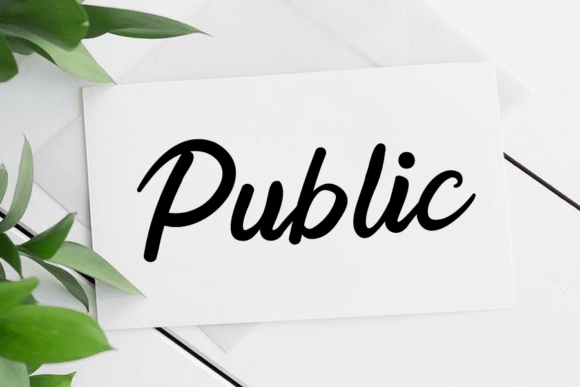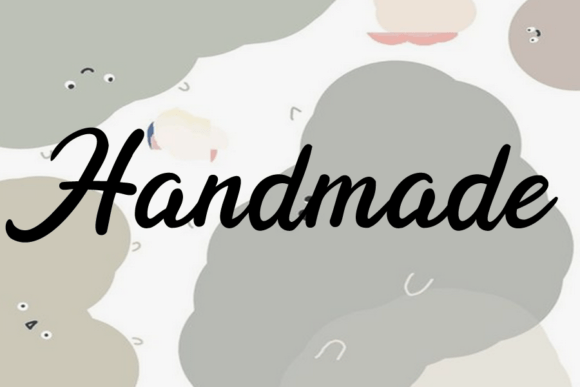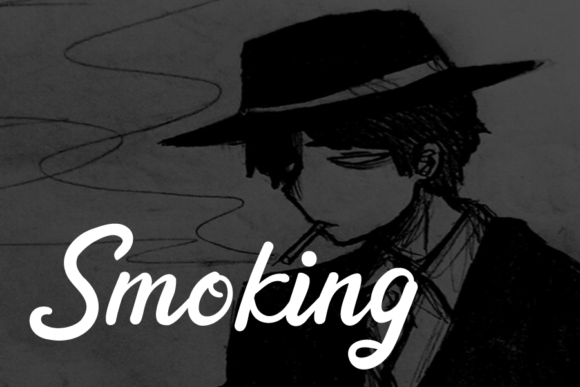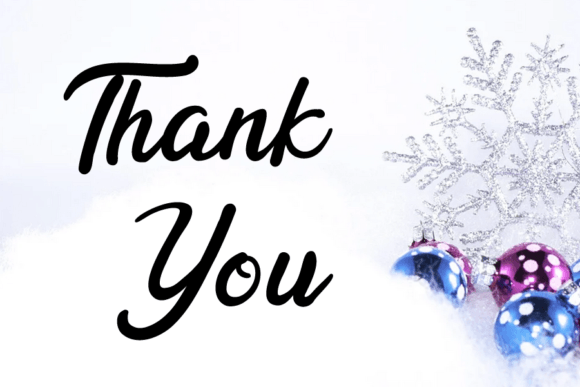
Introduction to Ceremonial Font
Have you ever been working on a creative project, pouring your heart and soul into every detail, and then it hits you – that perfect font that elevates your entire design? For me, it was the moment I stumbled upon the enchanting Ceremonial Font. Its unique, round-lettered handwritten style had me hooked from the very first glance. I envisioned it on a wedding invitation, a baby shower card, or even a romantic love letter – the possibilities were endless!
As a designer, I can attest that finding the right font can make all the difference in bringing your vision to life. The Ceremonial Font is a high-quality design resource that offers a transparent background, making it easy to integrate into any creative project. And the best part? It’s available for free download, making it an accessible addition to your design arsenal.
Key Features of Ceremonial Font
- High-quality design suitable for various creative projects, including wedding invitations, event banners, and more.
- Unique and elegant script font with a transparent background, allowing for easy placement over images or other design elements.
Honest Review: Ceremonial Font
I recently had the chance to work with the Ceremonial Font, and I must say it’s a high-quality design resource that can elevate any creative project. The font’s unique style and elegant feel make it perfect for projects that require a touch of sophistication.
- ✨ Beautifully crafted letters with intricate details
- ✨ Suitable for a wide range of creative projects, from weddings to luxury branding
- ⚠️ Limited character set, which may not be suitable for extensive text-based projects
- ⚠️ Some users may find the font too ornate for certain design applications
Overall, I’m impressed with the Ceremonial Font. Its unique style and high quality make it a valuable addition to any designer’s toolkit. While it may have some limitations, it’s definitely worth considering for your next creative project.
Common Use Cases and Tips
The Ceremonial Font is ideal for various design projects, including wedding invitations, graduation announcements, and business logos. To get the most out of this design resource, experiment with different font combinations and styles to create a unique and eye-catching design.